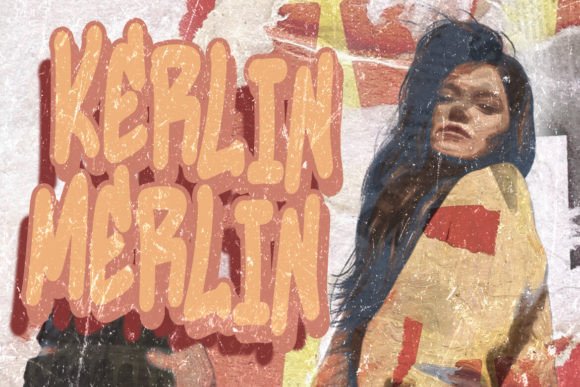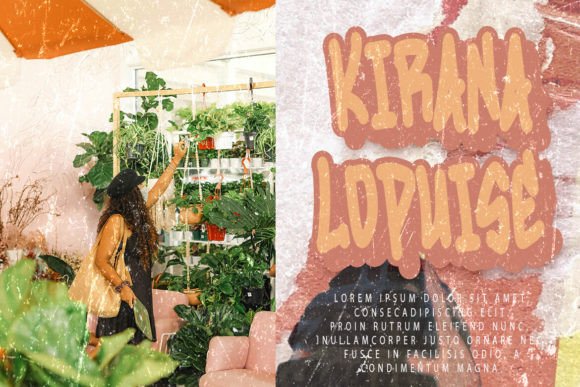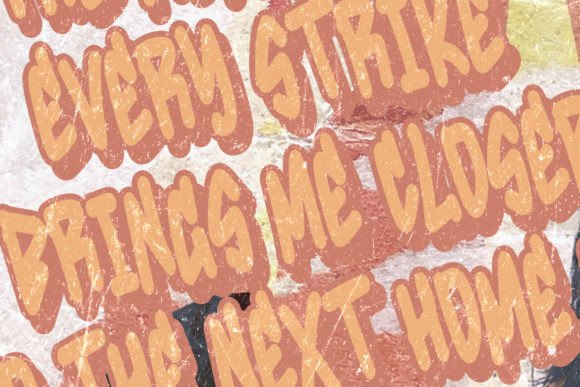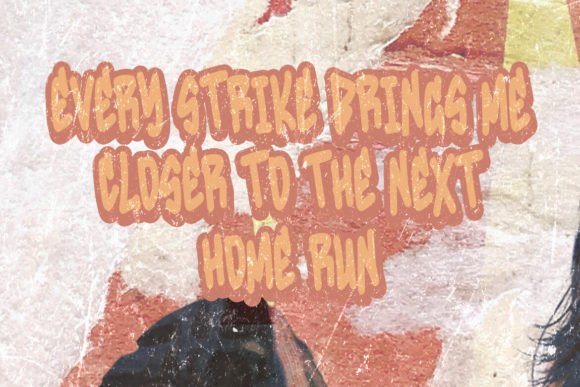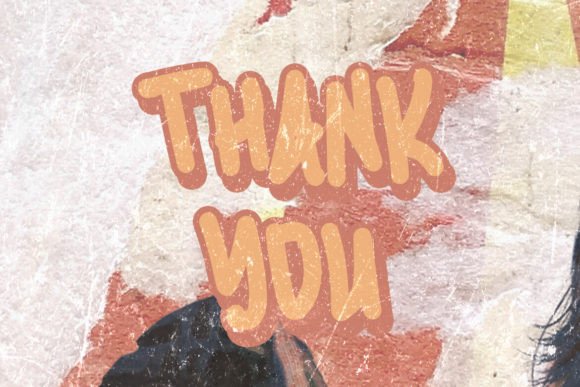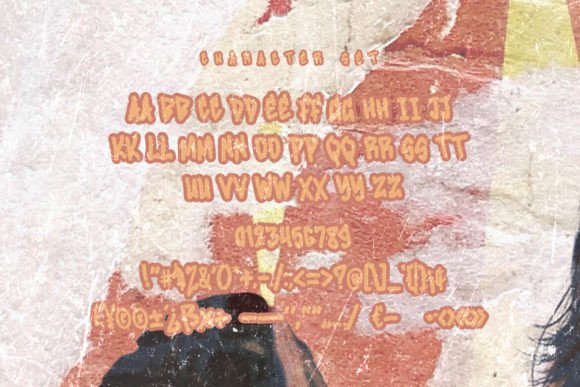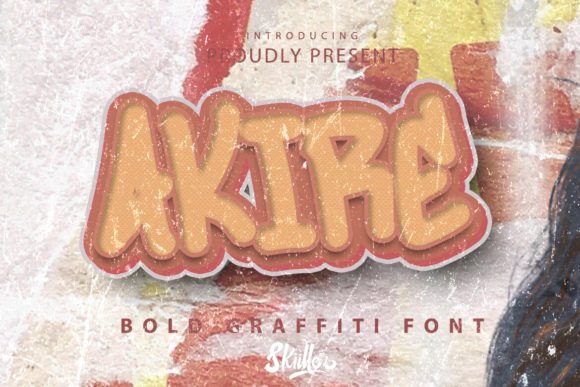
Introducing Akire Font: The Ultimate Graffiti Font for Fun Projects
Are you a designer or crafter looking for a font that can add a playful touch to your projects? Look no further than Akire Font, a vibrant and energetic graffiti font that’s perfect for creating fun and engaging content. In this article, we’ll explore the features and benefits of Akire Font, and show you how it can elevate your designs to the next level.
What is Akire Font?
Akire Font is a unique and creative graffiti font that’s designed to bring a smile to your face. With its bold and colorful letters, this font is perfect for creating eye-catching designs that are sure to grab attention. Whether you’re working on a children’s party invitation, a cute quote, or any other fun project, Akire Font is the perfect choice.
Features of Akire Font
So, what makes Akire Font so special? Here are just a few of its key features:
• Unique and playful design: Akire Font has a one-of-a-kind design that’s sure to stand out from the crowd. Its bold and colorful letters are perfect for creating fun and engaging designs.
• High-quality and scalable: Akire Font is a high-quality font that’s designed to be scalable. Whether you’re using it for a small project or a large one, it will always look great.
• Easily customizable: With Akire Font, you can easily customize the letters to fit your needs. Whether you want to change the color, size, or style, it’s easy to do.
• Perfect for kids’ projects: Akire Font is perfect for kids’ projects, such as party invitations, flyers, and posters. Its playful design is sure to delight kids and adults alike.
Benefits of Using Akire Font
So, why should you use Akire Font for your projects? Here are just a few benefits:
• Adds a playful touch: Akire Font adds a playful touch to any project, making it perfect for fun and engaging designs.
• Increases engagement: With its bold and colorful letters, Akire Font is sure to grab attention and increase engagement.
• Versatile: Akire Font is versatile and can be used for a wide range of projects, from kids’ parties to cute quotes and more.
Project Ideas Using Akire Font
Akire Font is perfect for a wide range of projects, including:
• Kids’ party invitations: Create fun and engaging party invitations that kids will love.
• Cute quotes: Add a playful touch to your quotes with Akire Font.
• Fun posters: Create eye-catching posters that are sure to grab attention.
• Social media graphics: Use Akire Font to create fun and engaging social media graphics.
Font Name Akire Font
Author Skiiller Studio
In conclusion, Akire Font is a unique and creative graffiti font that’s perfect for adding a playful touch to your projects. With its bold and colorful letters, it’s sure to grab attention and increase engagement. Whether you’re a designer or crafter, Akire Font is a must-have font that’s sure to elevate your designs to the next level. So why wait? Grab Akire Font now and start creating fun and engaging designs!